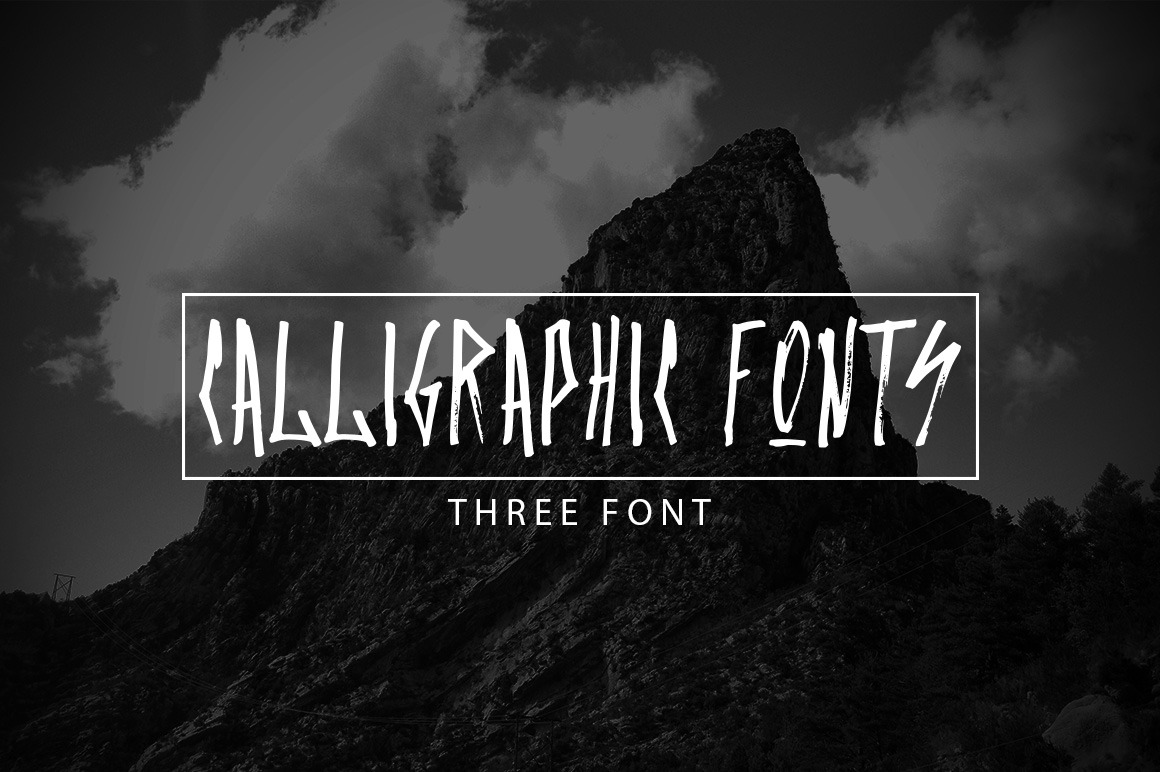
Set of three calligraphic fonts
A set of three calligraphic fonts for your design. The set includes the header fonts for posters, banners, clothes and prints. Files included: calligraphic font 1.otf calligraphic font 1.ttf calligraphic font 1.eps calligraphic font 2.otf calligraphic font 2.ttf calligraphic font 2.eps calligraphic font 3.otf calligraphic font 3.ttf calligraphic font 3.eps